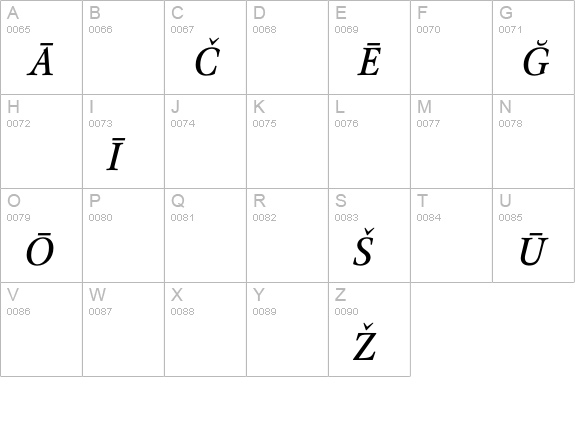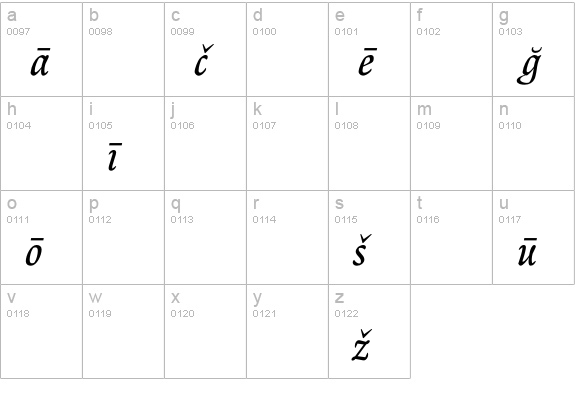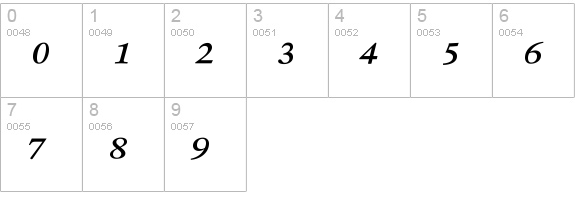
RenardNo1-ItalicPi is a stunning and elegant font, perfect for adding sophistication and style to any design project. Its sleek and slender letterforms exude a sense of grace and refinement, making it ideal for luxury brands, high-end fashion publications, and exclusive events. This font features a unique italicized style, giving it a touch of modernity and flair. The slanted letters create a sense of movement and dynamism, making it a great choice for projects that require a sense of energy and forward-thinking. RenardNo1-ItalicPi is not only visually appealing but also highly versatile. Its legibility ensures that it can be used effectively in a variety of contexts, whether it's in headlines, body text, or even as a display font. It effortlessly commands attention while maintaining a sense of professionalism and sophistication. One of the best things about RenardNo1-ItalicPi is that it is freely available to download at FontsMarket.com. This means that designers and creatives can access this beautiful font without any cost, allowing them to bring their visions to life without breaking the bank. Its availability for free ensures that anyone can enjoy the elegance and style that this font offers. Whether you're working on a branding project, designing a magazine layout, or creating invitations for a high-profile event, RenardNo1-ItalicPi is the perfect font to elevate your design and make a lasting impression. Its combination of elegance, versatility, and being freely accessible makes it an invaluable tool for any designer or creative professional.